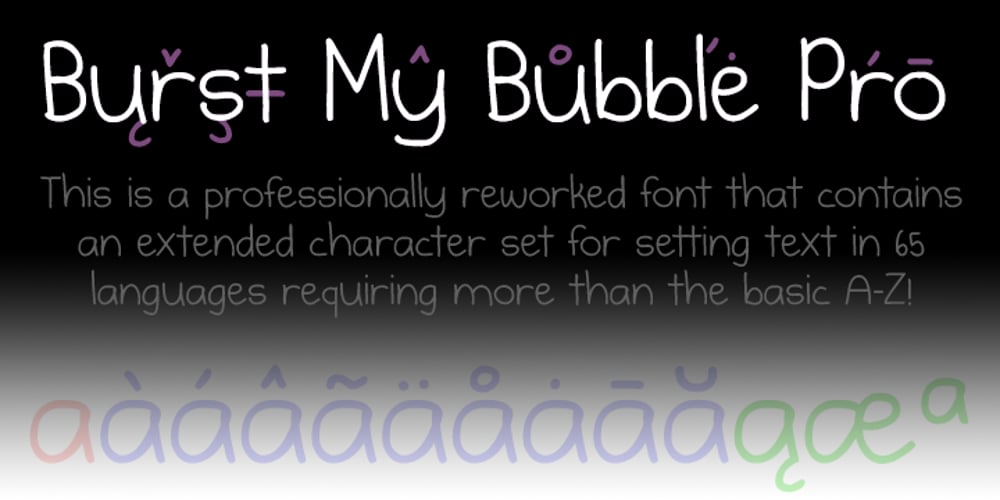
Burst My Bubble Pro Font Family was designed by Roger S. Nelsson, Kimberly Geswein and published by CheapProFonts. Burst My Bubble Pro contains 1 styles and family package options. This font has been described as “one of the cutest fonts I’ve ever seen. I can imagine a beautiful, young 22-year-old fashion design student from Los Angeles, CA with this handwriting as she’s writing in her journal.” I have cleaned it up a bit, increased the size of all the dots slightly and then designed all the diacritics and expanded the character set. The lowercase “f” has a big overhang and the lowercase “j” goes really far to the left – I have programmed automatic (OpenType) Contextual Alternate versions that automatically substitute with shorter variants when letters collide. These alternate letters can also be switched on using the OpenType palette’s Stylistic Alternates or Stylistic set 01 (“j”) and 02 (“f”). ALL fonts from CheapProFonts have very extensive language support: They contain some unusual diacritic letters (some of which are contained in the Latin Extended-B Unicode block) supporting: Cornish, Filipino (Tagalog), Guarani, Luxembourgian, Malagasy, Romanian, Ulithian and Welsh. They also contain all glyphs in the Latin Extended-A Unicode block (which among others cover the Central European and Baltic areas) supporting: Afrikaans, Belarusian (Lacinka), Bosnian, Catalan, Chichewa, Croatian, Czech, Dutch, Esperanto, Greenlandic, Hungarian, Kashubian, Kurdish (Kurmanji), Latvian, Lithuanian, Maltese, Maori, Polish, Saami (Inari), Saami (North), Serbian (latin), Slovak(ian), Slovene, Sorbian (Lower), Sorbian (Upper), Turkish and Turkmen. And they of course contain all the usual “western” glyphs supporting: Albanian, Basque, Breton, Chamorro, Danish, Estonian, Faroese, Finnish, French, Frisian, Galican, German, Icelandic, Indonesian, Irish (Gaelic), Italian, Northern Sotho, Norwegian, Occitan, Portuguese, Rhaeto-Romance, Sami (Lule), Sami (South), Scots (Gaelic), Spanish, Swedish, Tswana, Walloon and Yapese.